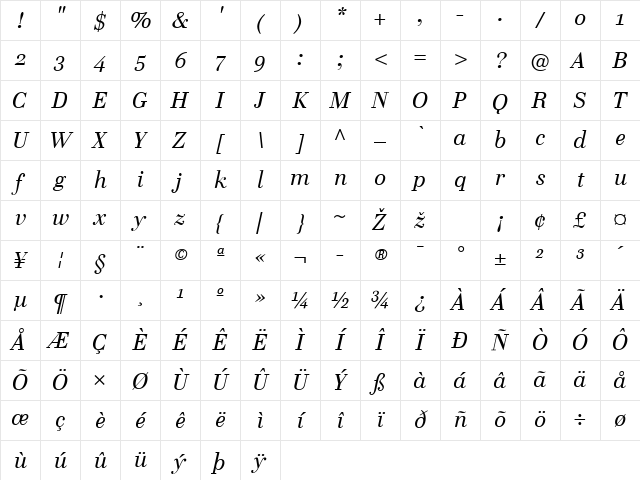
Cellini-RegularItalic Regular
Foundry: Albert Boton, published by FontShop International for the FontFont Library
Designer: Albert Boton
Design Context for Cellini-RegularItalic
Cellini-RegularItalic is a composed and adaptable typeface that performs quietly and consistently across a wide range of design contexts. The slanted form adds forward momentum and visual energy.
Pro Tip: Use Cellini-RegularItalic for emphasis, pull quotes, and subheadings where its slanted energy can add rhythm to the layout.